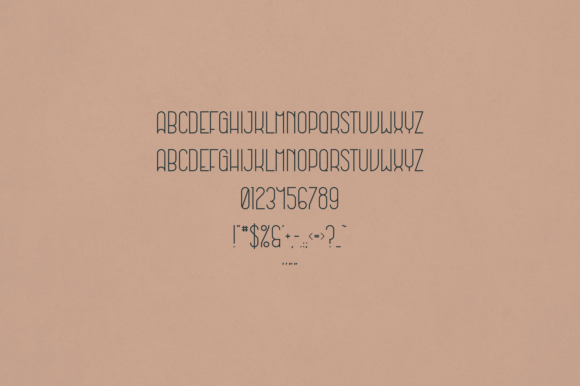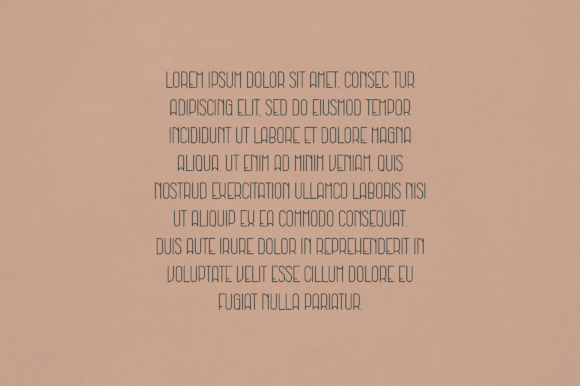
Introducing Ellery Font: Elevate Your Typography with Elegance and Versatility
In the world of design, typography plays a crucial role in conveying messages, expressing creativity, and establishing brand identity. Among the numerous fonts available, Ellery Font stands out as a sophisticated and adaptable display font that can transform your typography into a unique masterpiece. Whether you’re working on a logo, branding project, headline, or plain text, Ellery Font is the perfect choice to add a touch of elegance and style.
What Makes Ellery Font Special?
Ellery Font is an elegant and versatile display font designed to make your typography truly unique. Its sophisticated lines, curves, and structure make it an ideal choice for various design projects, including:
- Branding projects: Establish a strong brand identity with Ellery Font’s distinctive and memorable style.
- Home-ware designs: Add a touch of elegance to your home-ware designs, such as product labels, packaging, and advertisements.
- Product packaging: Make your product stand out on store shelves with Ellery Font’s stylish and eye-catching typography.
- Magazine headers: Create stunning magazine headers that grab readers’ attention and set the tone for your content.
- Text overlay: Use Ellery Font as a stylish text overlay to add context and meaning to any background image.
Key Features of Ellery Font
Ellery Font boasts several key features that make it an excellent choice for designers and crafters:
- Elegant and sophisticated design: Ellery Font’s refined lines and curves create a luxurious and high-end feel.
- Versatile: Suitable for various design projects, from branding and advertising to packaging and editorial design.
- Unique: Stand out from the crowd with Ellery Font’s distinctive style that will make your typography truly memorable.
- Easy to read: Despite its elegant design, Ellery Font remains clear and easy to read, making it perfect for body text and headlines.
Tips for Using Ellery Font Effectively
To get the most out of Ellery Font, consider the following tips:
- Pair with contrasting fonts: Combine Ellery Font with a contrasting font to create visual interest and hierarchy.
- Experiment with colors: Try Ellery Font with different colors to find the perfect match for your design.
- Play with sizes: Use Ellery Font in various sizes to create a visually appealing typography hierarchy.
- Add texture and effects: Enhance Ellery Font with subtle textures and effects to add depth and interest.
Who Can Benefit from Ellery Font?
Ellery Font is an excellent choice for:
- Graphic designers: Looking for a sophisticated and versatile font to elevate their designs.
- Branding experts: Seeking to establish a strong brand identity with a unique and memorable typography.
- Digital artists: Wanting to add a touch of elegance and style to their digital art and illustrations.
- Crafters and DIY enthusiasts: Creating handmade products, such as journals, planners, and crafts, that require a personal touch.
Ellery Font is a stunning and versatile display font that can elevate your typography to new heights. With its elegant design, versatility, and unique style, it’s perfect for various design projects, from branding and advertising to packaging and editorial design. Whether you’re a designer, crafter, or DIY enthusiast, Ellery Font is an excellent choice for adding a touch of sophistication and style to your work.